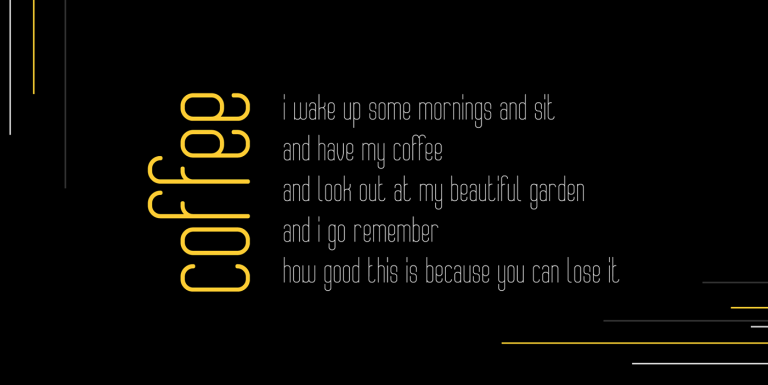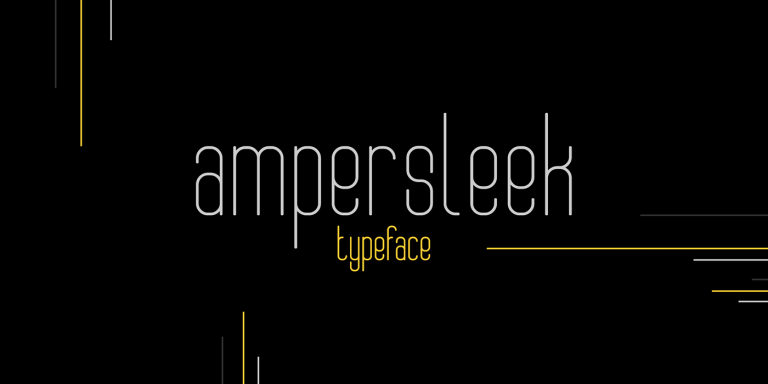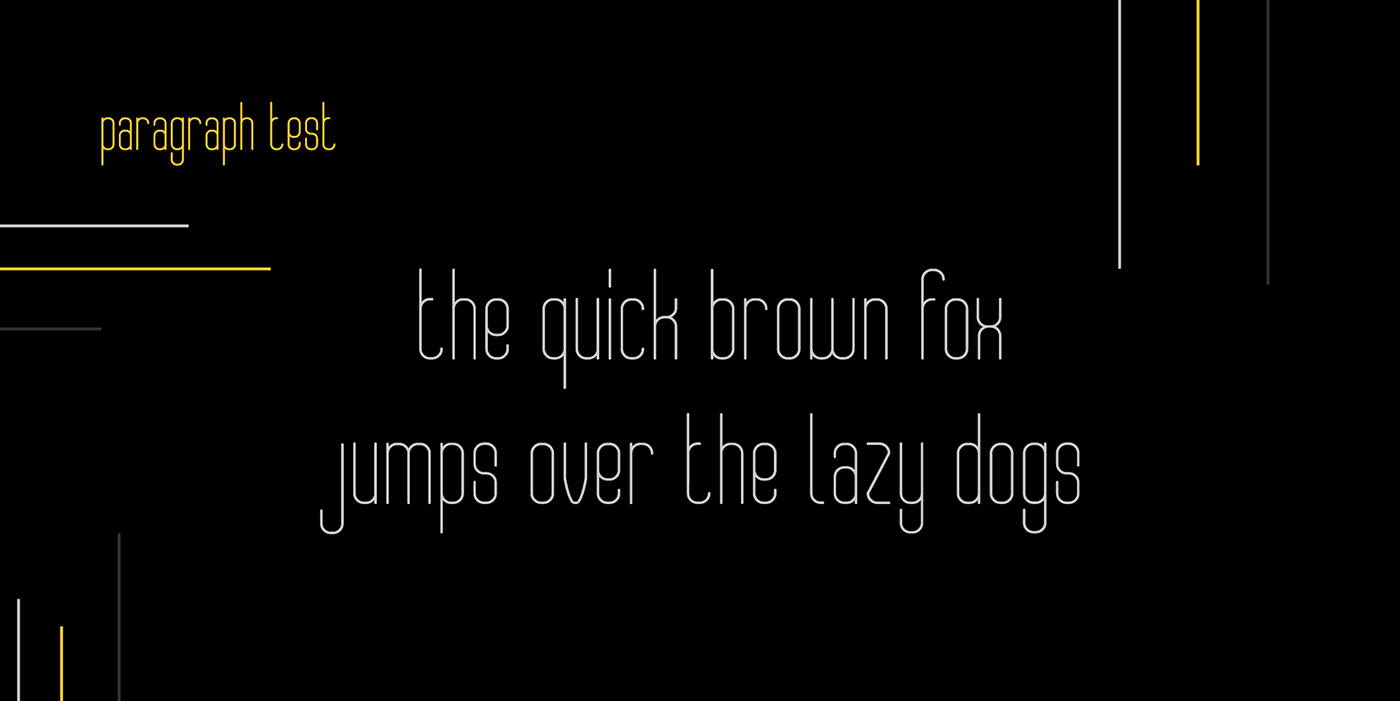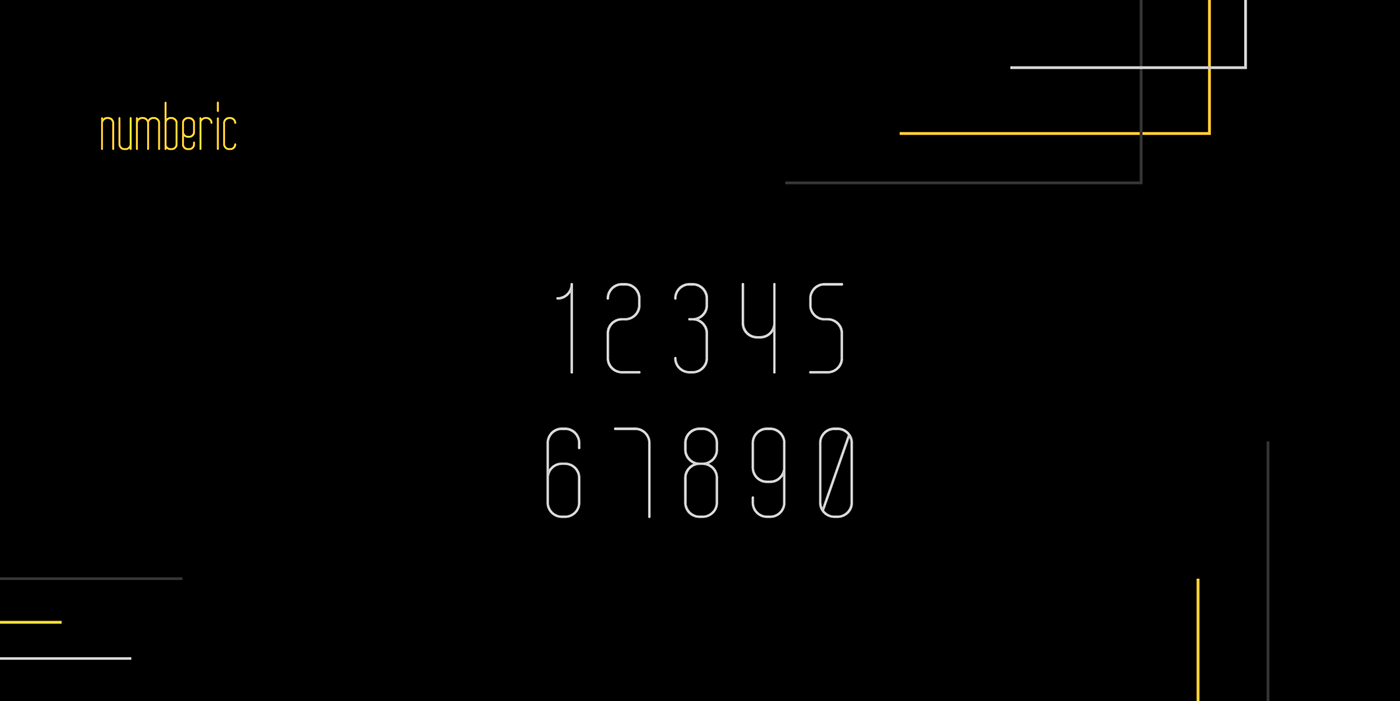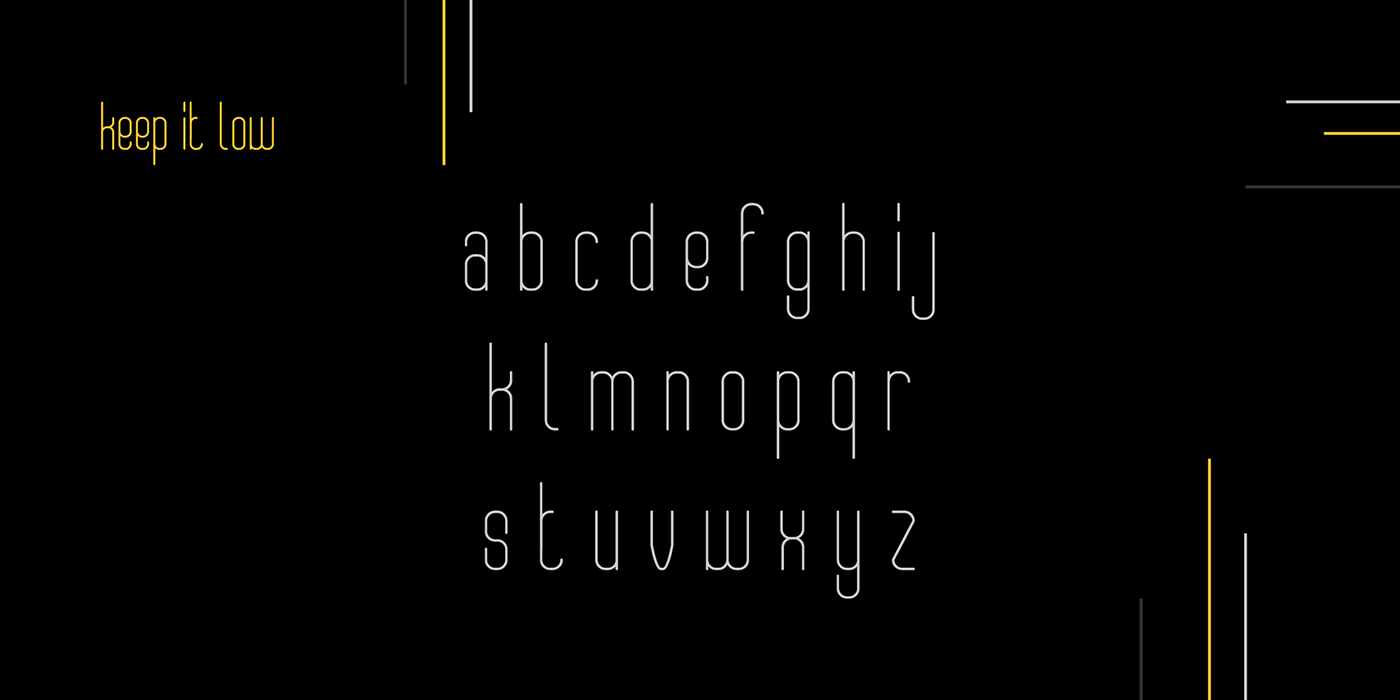
AmperSleek Typeface
Thank you for trying this font. Introducing AmperSleek Font! This is the second typeface for the Ampersand brand. Given the name AmperSleek, because the font has a sleek and modern feel. This typeface is still under development for making font families. Perfect for many different projects: quotes, blog header, poster, wedding, branding, logo, fashion, apparel, letter, invitation, stationery, etc